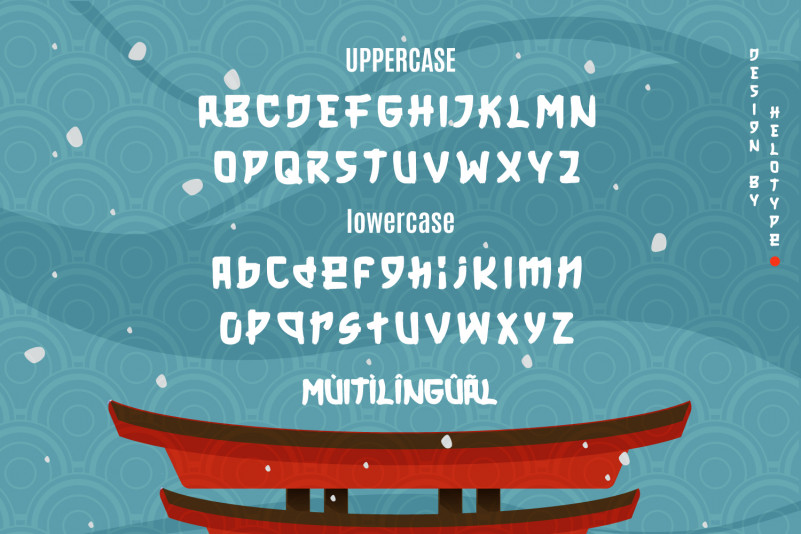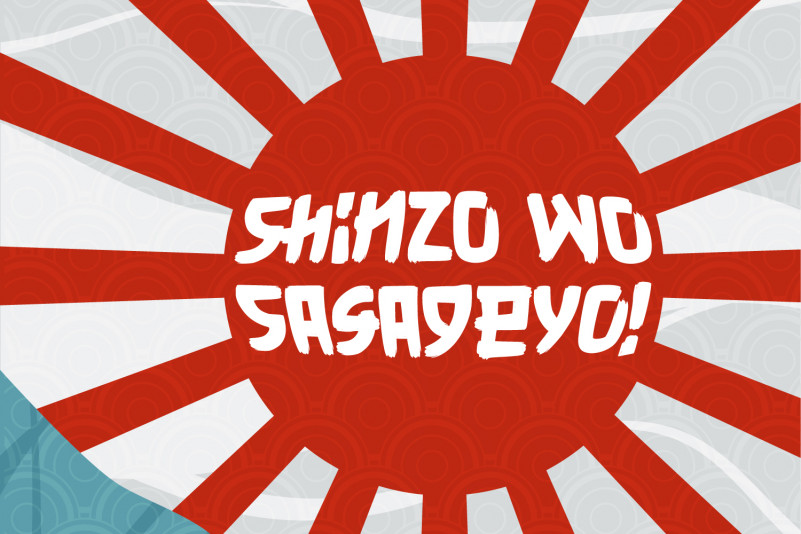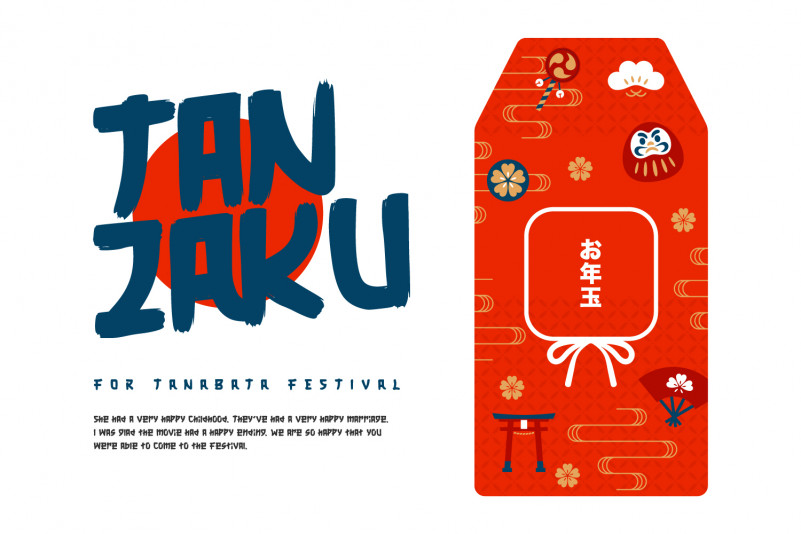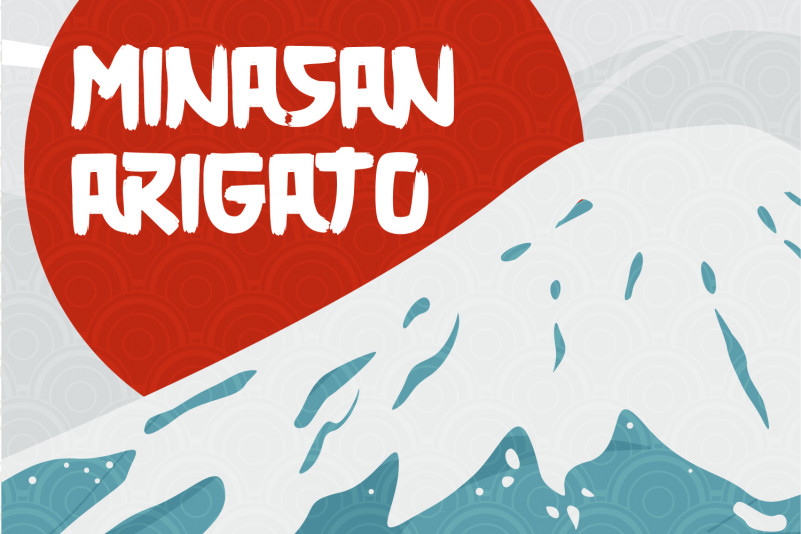
Midorima Font
Midorima Brush Font
This is a cool, brushed, Japanese styled display font. It will look stunning on any food menu, poster flyer or print. Use this font for your designs and explore its endless possibilities.
Heloyud